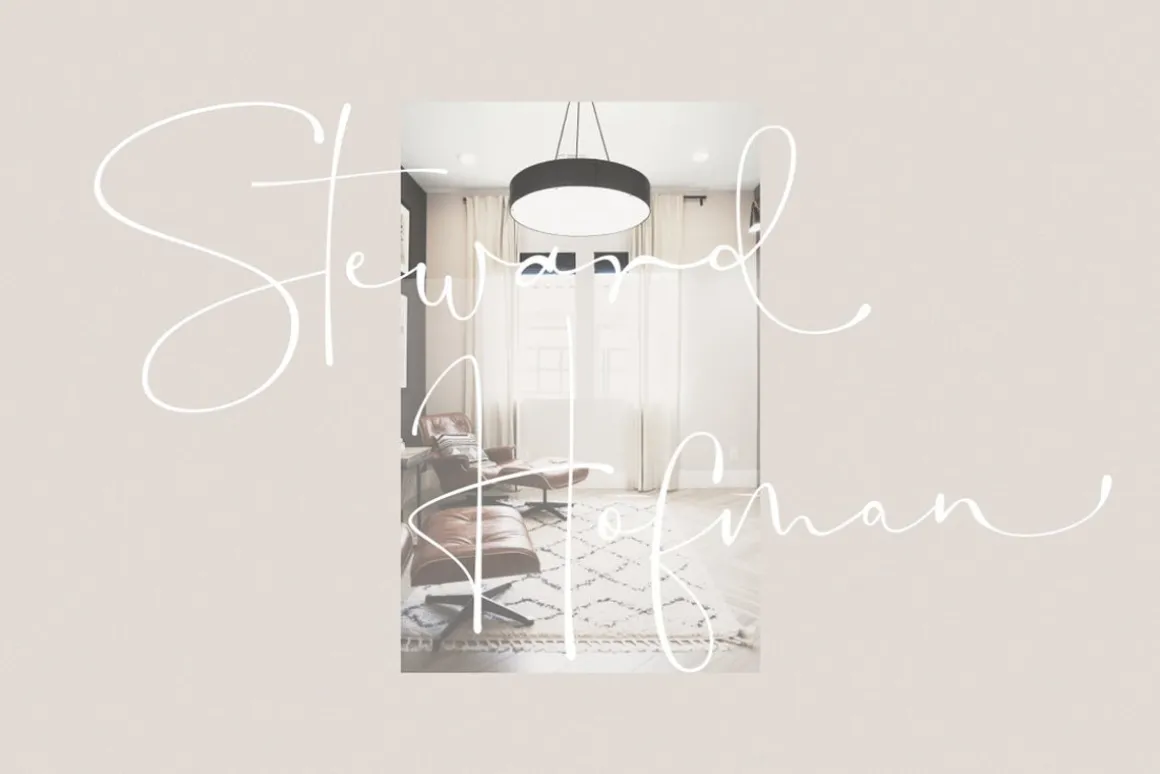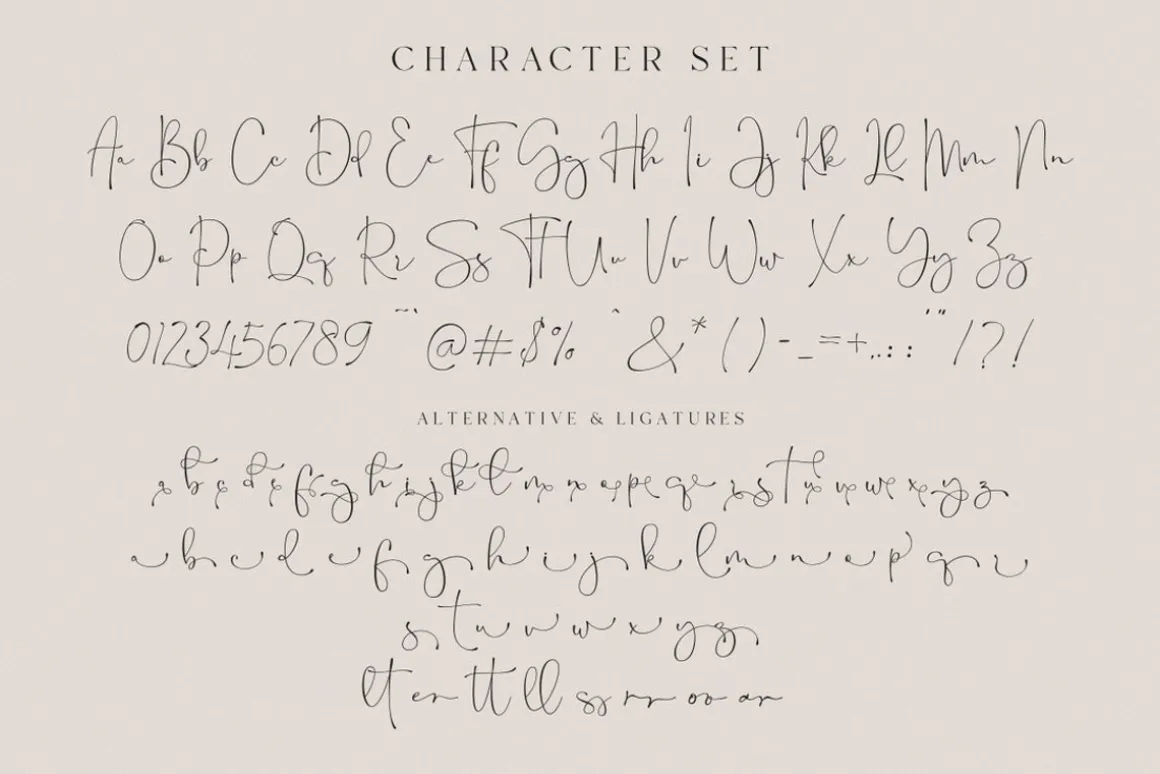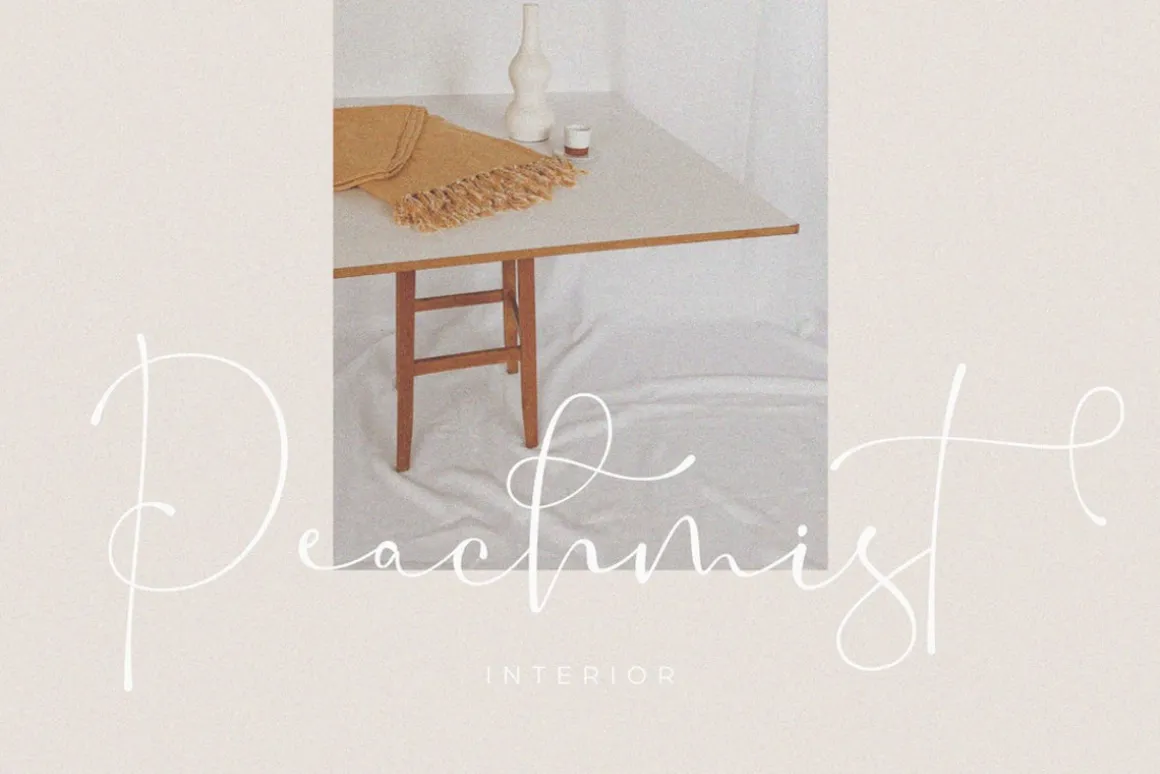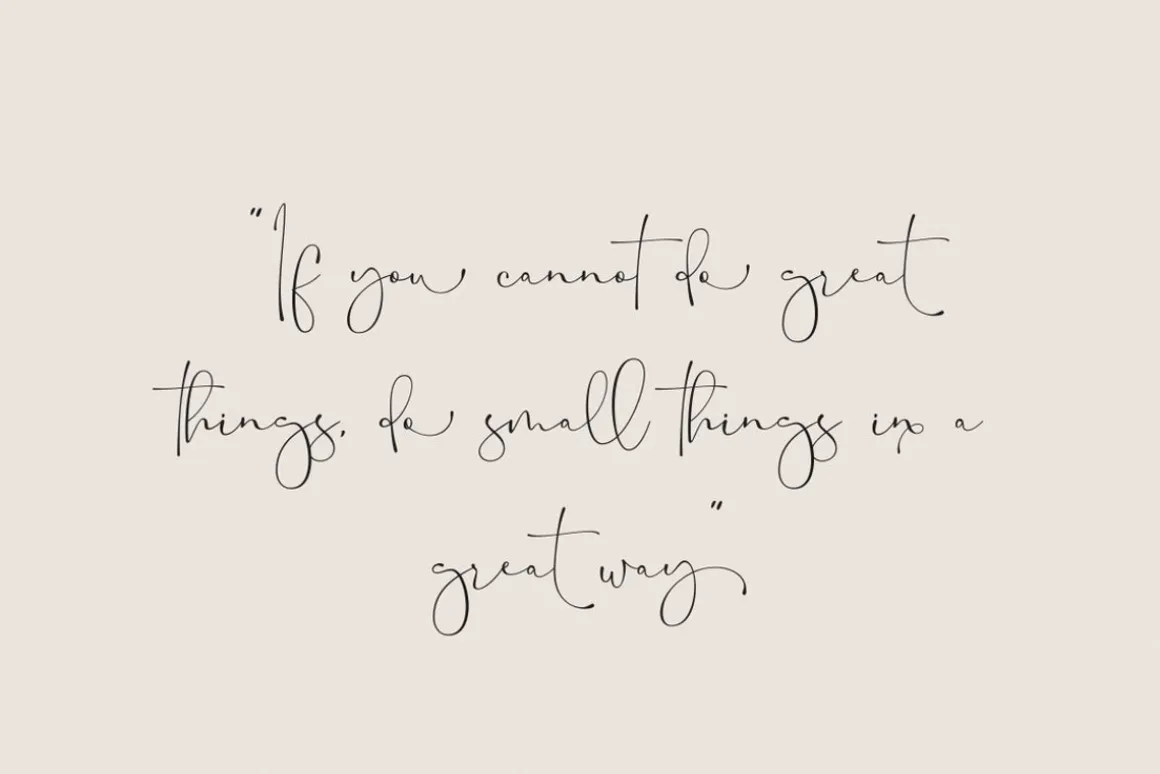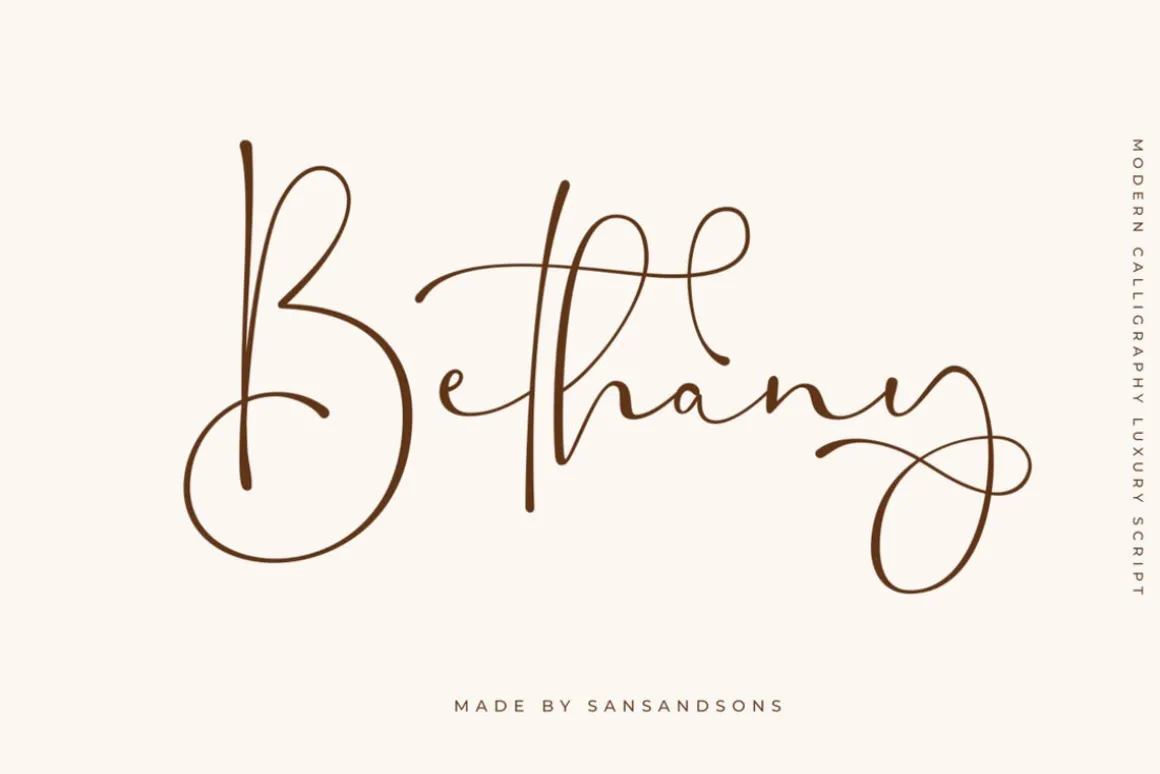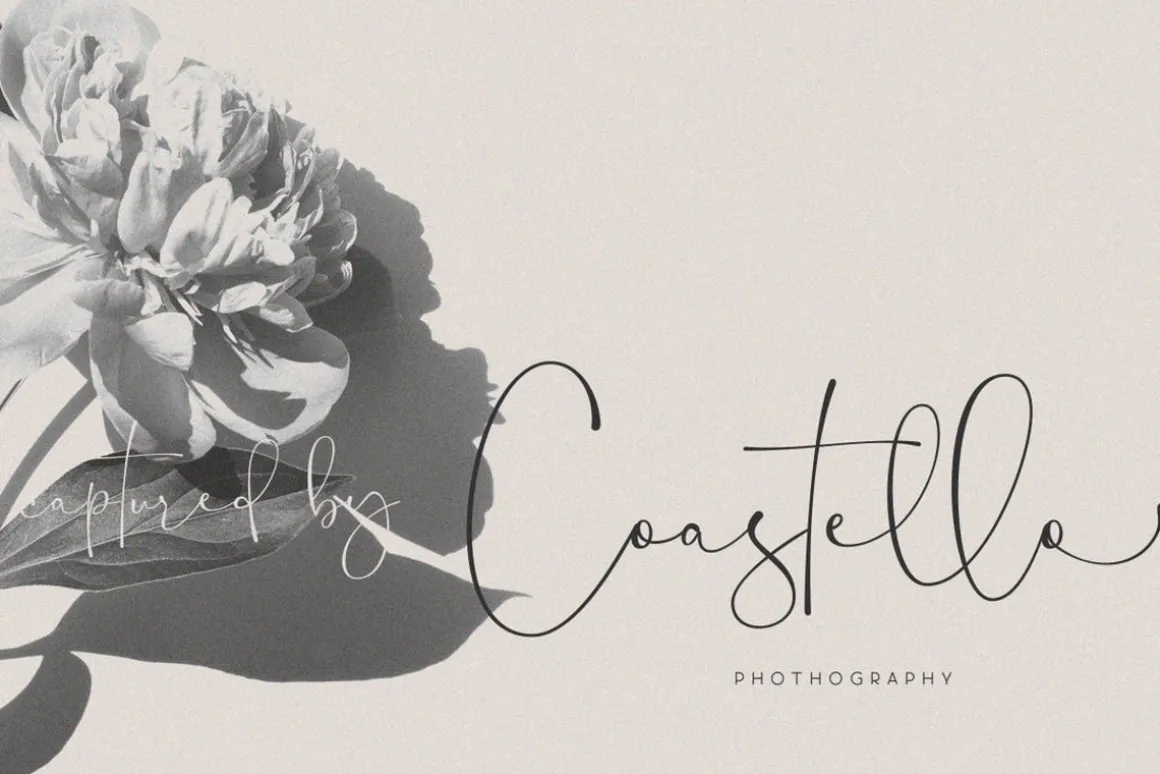
Bethany – Elegant Lovely Font by Sans & Sons
Bethany includes full set of uppercase and lowercase letters, multilingual symbols, numerals, punctuation, alternates, swash and ligatures. The font has organic smooth wet ink texture with Modern Elegant Style this is perfect for branding, logos, invitation, masterheads and more.
Bethany Features :
- Multilanguange
- Ligatures
- Alternates
- Swash